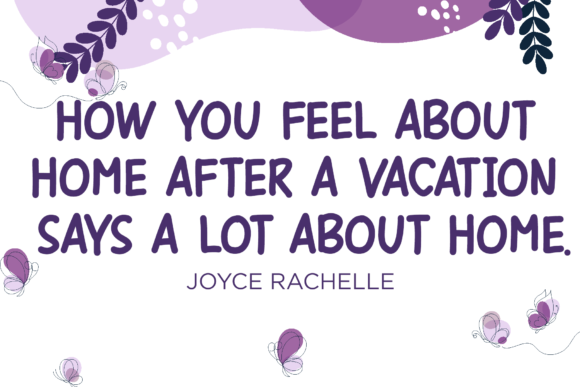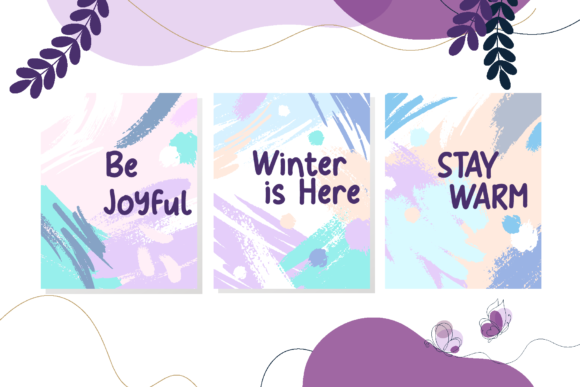
Round Butterfly Font
db-ku.com - Script & Handwritten -- Round butterfly is a playful and flexible font. Use it on your shirt design projects, cards, or even as ur natural handwriting!